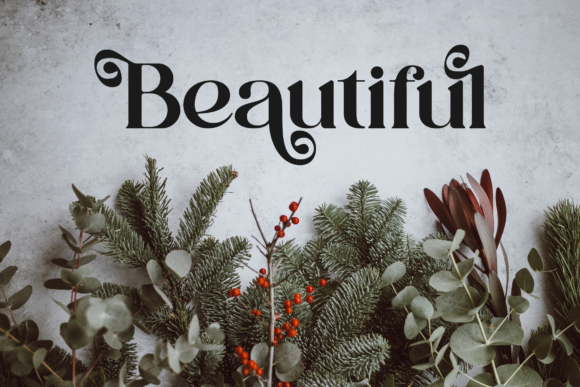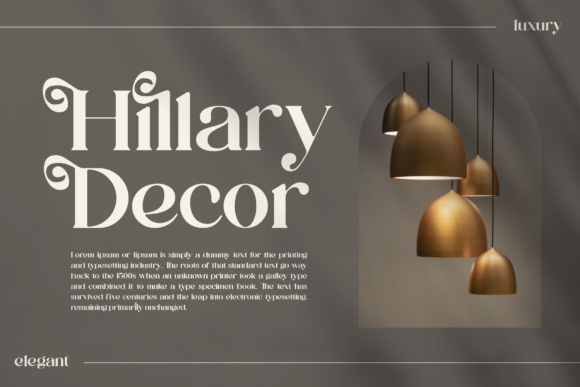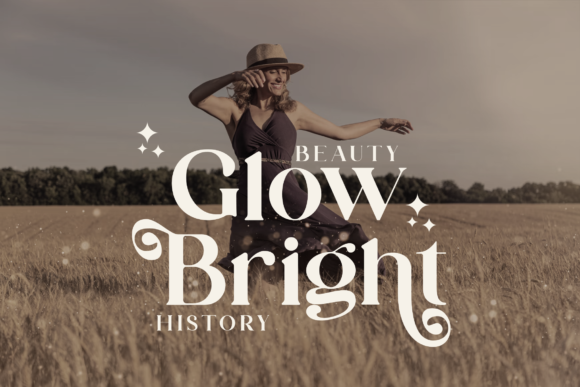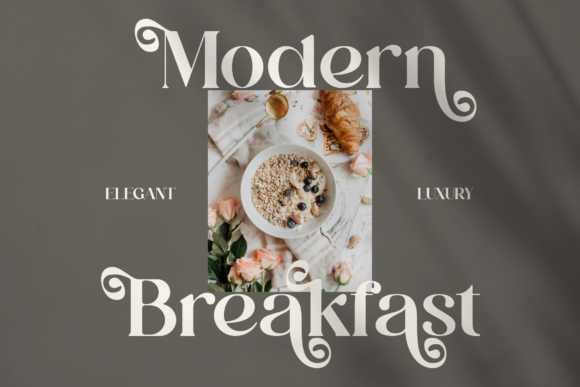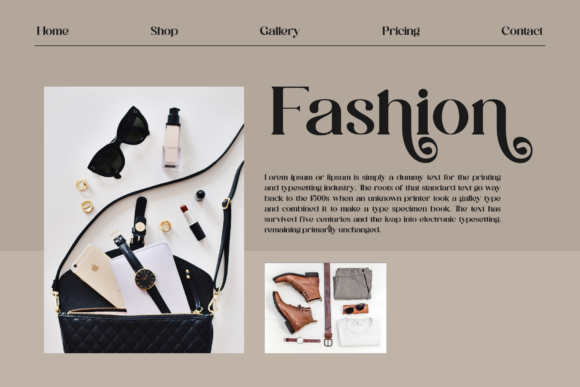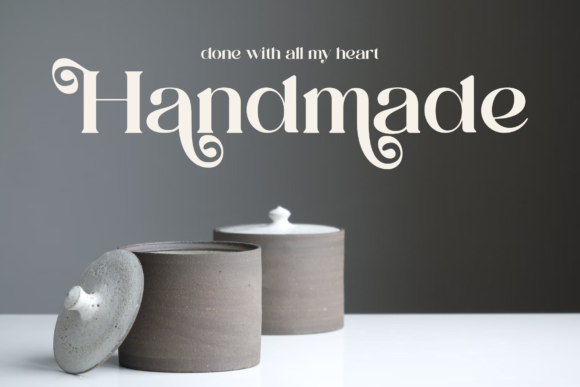
Introduction to Ranika Font
Have you ever found yourself staring at a blank canvas, trying to come up with the perfect design for your creative project? You’ve got a vision in your mind, but the words just aren’t flowing onto the page. That’s where the right design resource can make all the difference. For designers looking to add a touch of elegance and sophistication to their work, there’s one font that stands out from the rest: the Ranika Font.
This stunning serif font is more than just a pretty face – it’s a versatile tool that can elevate any design, from a luxury logo to a book title or magazine cover. With its unique blend of classic and modern styles, the Ranika Font is the perfect choice for designers who want to make a statement without sacrificing high quality.
Key Features of Ranika Font
- High-quality, vector-based font with a transparent background, ideal for creative projects requiring a clean and minimalist design.
- Includes a range of characters, including uppercase and lowercase letters, numbers, and punctuation marks, to support a variety of design applications.
- Designed with a modern and sleek aesthetic, making it perfect for use in digital design, such as website headers, social media graphics, and other visual content.
- Features a highly legible design, with clear and crisp lines, ensuring that your text stands out in any creative project.
Honest Review: Ranika Font
I recently stumbled upon the Ranika Font, and I must say it’s a game-changer for any creative project. This free download has been a lifesaver for me, especially when working on designs that require a high-quality, elegant touch.
What works well about the Ranika Font is its versatility and range of uses. It’s perfect for titles, headings, and even body text. I love how it looks stunning on a transparent background, making it ideal for digital designs. The font is also highly customizable, allowing me to tweak it to fit my brand’s aesthetic.
- ✨ Elegant and sophisticated design
- ✨ Highly customizable
- ✨ Works well on transparent background
However, I do have to mention that the font may not be suitable for all design projects. The Ranika Font is quite elegant and refined, which might not be the best choice for bold or playful designs. Additionally, the font’s complexity may make it challenging to pair with other fonts.
Overall, I’m impressed with the Ranika Font. It’s a high-quality design resource that I’ve found myself reaching for again and again. While it may have some limitations, I believe its strengths outweigh its weaknesses.
Ranika Font is ideal for:
- Business branding and marketing materials
- Personalized gifts and cards
- Designing social media graphics and posts